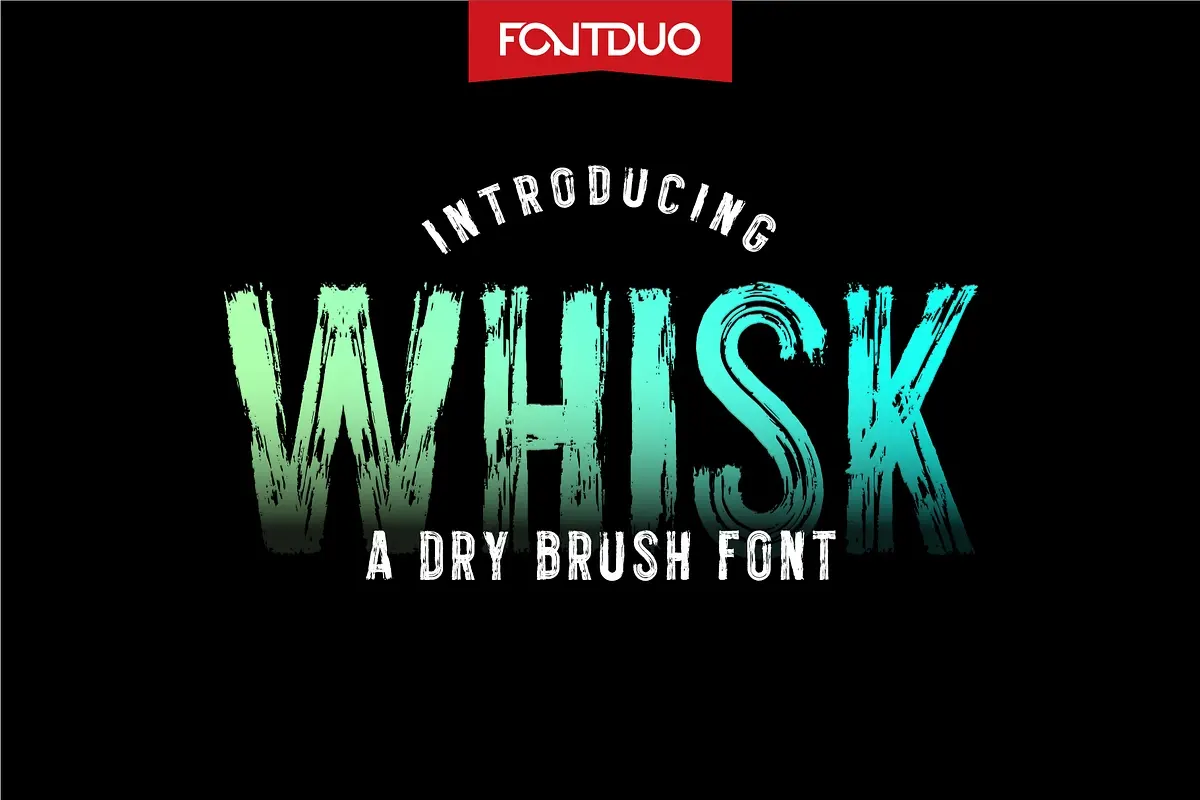
Whisk Dry Brush Font Free Download
Whisk Dry Brush Font Free Download is a bold and expressive handwritten typeface, designed to add a raw, artistic flair to your designs. With its textured brushstroke style, this font is perfect for creating dynamic logos, posters, social media content, and branding materials. The natural and rough feel of the brush strokes makes it ideal for projects that require a creative, energetic vibe. Whether you're designing for a creative brand, an event, or personal projects, Whisk Dry Brush Font Free Download allows you to experiment with its unique style in personal projects before purchasing a commercial license. Add energy, creativity, and authenticity to your designs with this beautifully crafted dry brush font.